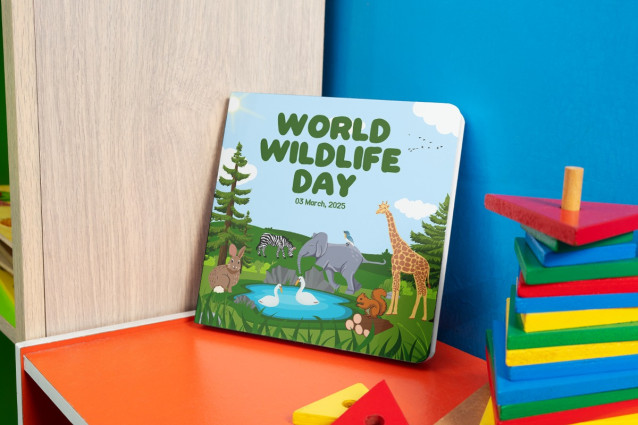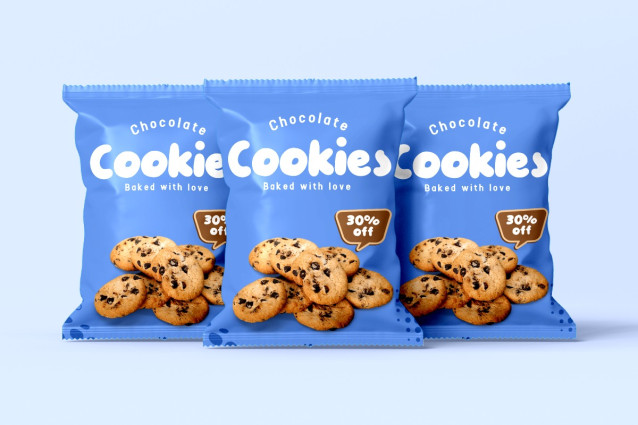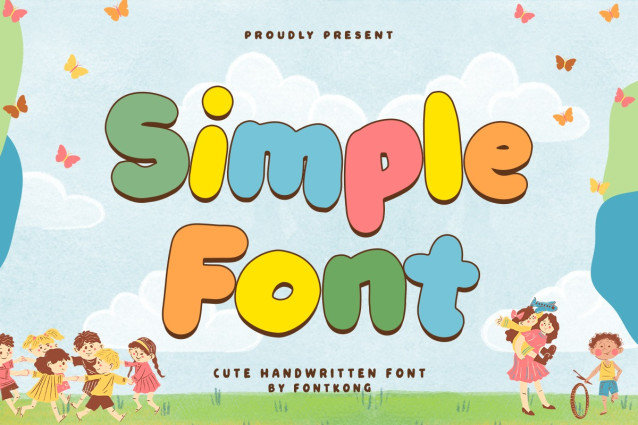
Simplefont Font
Simplefont Font Simplefont Modern Classy Handwritten Kids Font was made to give a cute and fun modern font impression to anyone who sees it. This is in line with the characteristics of letters which have simple shapes without any additions. People who read texts using this typeface don’t have to try hard to read and understand them. As the name implies, Simplefont Modern Classy Handwritten Kids Font is the best font for a cute theme. This font can be used as a digital font. Its application can be in cartoon films, fairytale videos, educational videos, and advertisements containing products about children. Its application accompanied by colors and all ornaments related to children will bring out the features of this font to the fullest. Simplefont Modern Classy Handwritten Kids Font can be used as a print font. Its application can be on children’s theme posters, cartoon stickers, snacks, drink packaging, and children’s themed event banners. The characteristics of a simple font will make it easier for anyone to read it. This font will be the right choice for those who like simplicity and don’t like the look of a busy design. This font is synonymous with cute and fun impressions. This typeface can be printed in small or large sizes and still looks good up close or from a distance. This font is legible. Our Handwritten fonts collection is compatible with; Figma fonts, Canva fonts, Freepik Fonts, and Adobe Fonts. They also work as Windows Fonts and Apple Fonts. For your social media needs, you can use and install fonts in our collection of Espot & Futuristic font types to use as Instagram Fonts, Facebook Fonts, and Twitter Fonts.